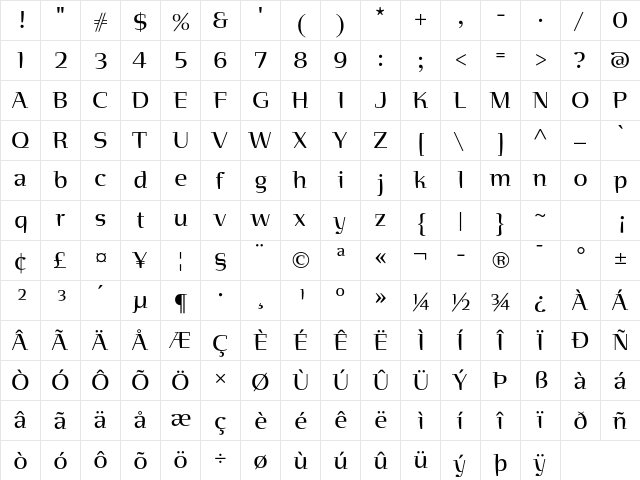
OrgǮica GMM Semiserif Roman
| Designer | Gabriel MartҮez Meave |
Design Context for OrgǮica GMM Typeface
OrgǮica GMM carries the refined structure of traditional serif typography, with bracketed terminals and considered proportions that communicate credibility and craft.